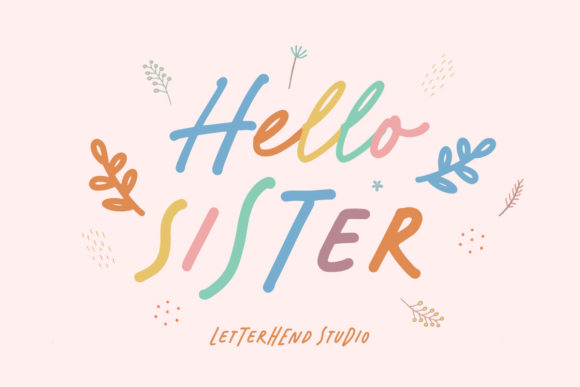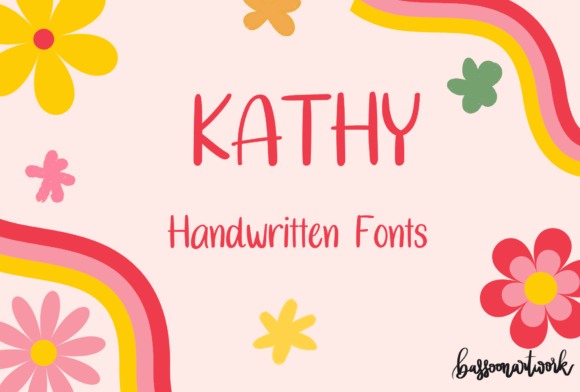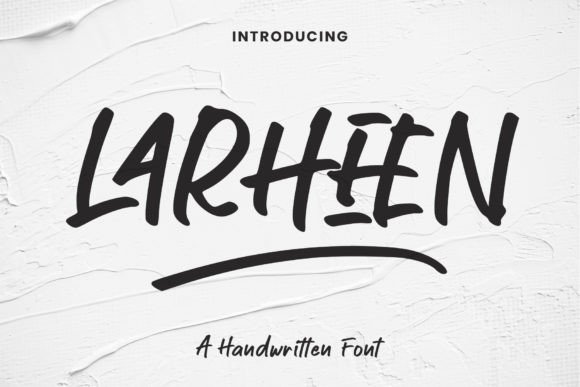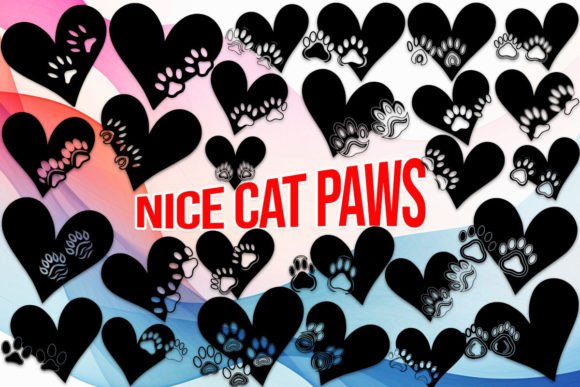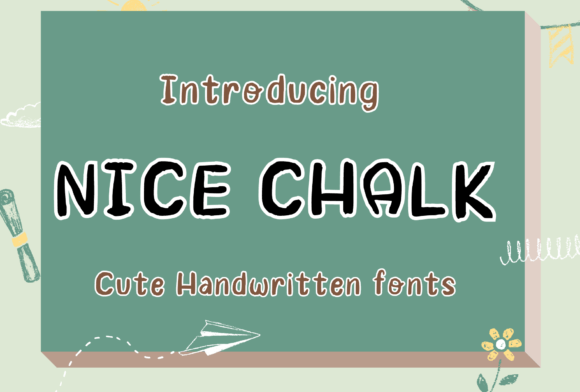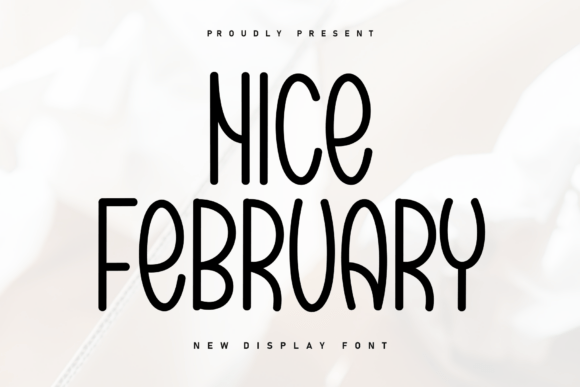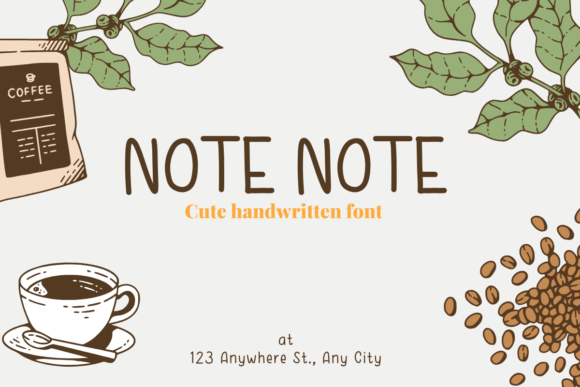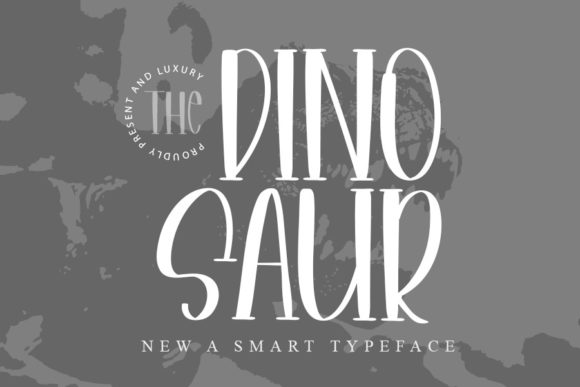
Nice fonts
My current typeface crushes: 12 nice fonts you need to see
The wrong typeface is like a jarring note in a perfect melody. You feel it immediately, even if you can’t name it. I spend hours, sometimes days, auditioning fonts for a single project, hunting for that elusive balance of form and function. It’s a deeply personal part of the process, and over the years, I’ve built a private collection of what I genuinely consider nice fonts.
These aren’t the trending display faces you’ll see everywhere next month. I’m talking about the reliable, beautifully-drawn workhorses that make a layout sing without screaming for attention. The kind of nice fonts that solve problems elegantly and make your work look effortlessly professional.
Here are a few from my personal library that I keep coming back to.
Nice Cat Paws Font
Sometimes a project calls for something less serious, a touch of whimsy that still feels considered. That’s exactly when I dug into the Nice Cat Paws Fonts set, and honestly, it’s pure fun without sacrificing quality. This isn’t just a gimmick – it’s a thoughtfully crafted collection of 36 characters, giving you full uppercase letters and numbers, all with that distinctive paw-print personality.
What really makes it work are the extras. Hidden in this set are adorable heart-shaped symbols and playful cat paw accents that let you customize headlines, logos, or social media graphics with real character. It’s the kind of detail that makes people stop scrolling. If you’re looking for genuinely nice fonts that bring warmth and approachability to digital projects, this one delivers.
Kathy Handwritten Font
There’s a particular challenge in branding soft products – whether it’s organic skincare or classroom materials – where the typeface needs to feel personal but never messy. I recently worked on a project for a natural bath line and kept circling back to that exact problem until I tried Kathy. This handwritten font walks a beautiful line: those clean, consistent strokes give it readability, while the organic feel keeps it from looking sterile.
What impressed me most is its quiet versatility. The nice fonts in my library often get pigeonholed into one style, but Kathy moves effortlessly from a gentle baby product label to a bold keychain design. I tested it on a mock birthday card layout and immediately saw why it works for education too – the letters have enough personality to engage kids without sacrificing clarity. Whether you’re designing a coffee mug gift line or sprucing up a planner layout, this one earns its keep.
Note Note Font
Some fonts feel like they were drawn specifically for the project you’re staring at. That’s exactly the sensation I had opening Note Note for the first time. There’s a warmth here that’s difficult to manufacture – those naturally uneven strokes and genuine handwritten quality make it feel less like a typeface and more like a friend leaving you a note.
What draws me to the best nice fonts is their ability to disappear into the design while quietly elevating it. Note Note does precisely that. I’ve been testing it across completely different contexts – a whimsical save-the-date one minute, a cozy café chalkboard style the next – and it adapts without ever feeling forced. The characters have this effortless authenticity that connects with viewers on a human level. Whether you’re crafting a personal blog header or packaging for a local honey brand, this one invites you to play. The only real constraint is where you decide to stop.
The Dinosaur Font
Every designer needs that one serif that feels like a tailored blazer -professional, timeless, but with just enough personality to stand out in a crowd. The Dinosaur has quietly become that for me over the past few months. Don’t let the playful name fool you; this is a seriously elegant typeface with beautifully balanced characters and remarkable readability at multiple sizes.
I’ve found the truly nice fonts earn their keep by working harder than expected, and The Dinosaur delivers. It handled a sophisticated editorial layout beautifully, then pivoted seamlessly to branding for a small publishing house. The contrast in the strokes gives it that classic serif authority, yet the proportions keep it feeling fresh and approachable. It’s the kind of font that makes your work look instantly more polished without screaming for attention. Whether you’re building a magazine spread or refining a logo concept, this one belongs in your toolkit.
Conferia Gelato Font
Let me introduce you to something that genuinely excited me when I first opened the file: Conferia Gelato. This isn’t your standard typeface – it’s a color font in the Opentype-SVG format, meaning those playful gelato patterns and that bouncy brush texture are baked right into the characters. No layering, no manual coloring. It just works.